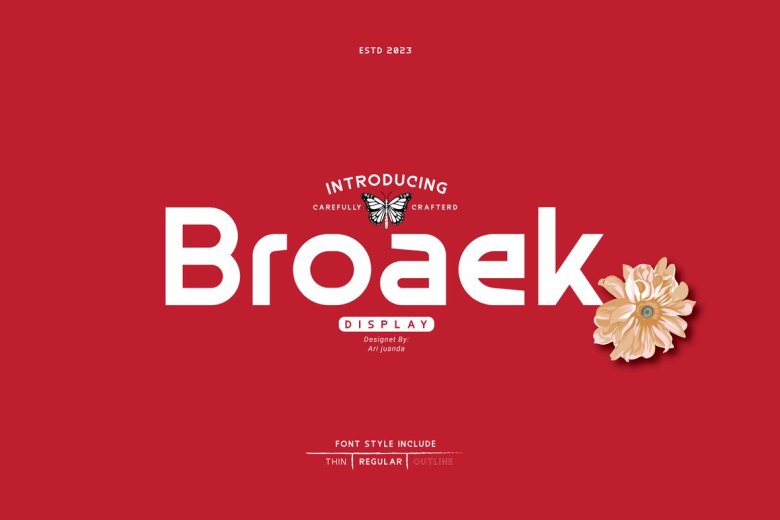
Broaek Font
Broaek features a modern aesthetic. Available in three styles – regular, thin and outline – this font can be used for headlines, posters and branding as well as titles, graphic designs or any other graphic design projects.
Broaek Sans Serif Font